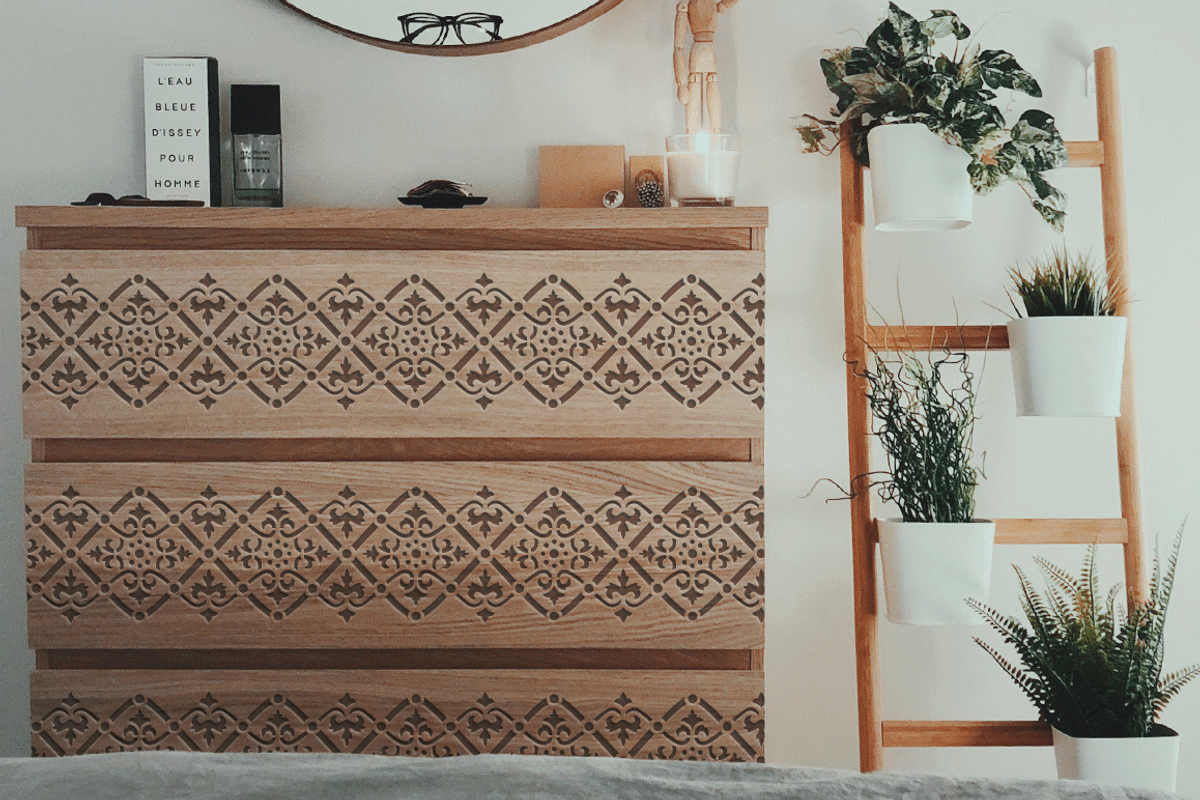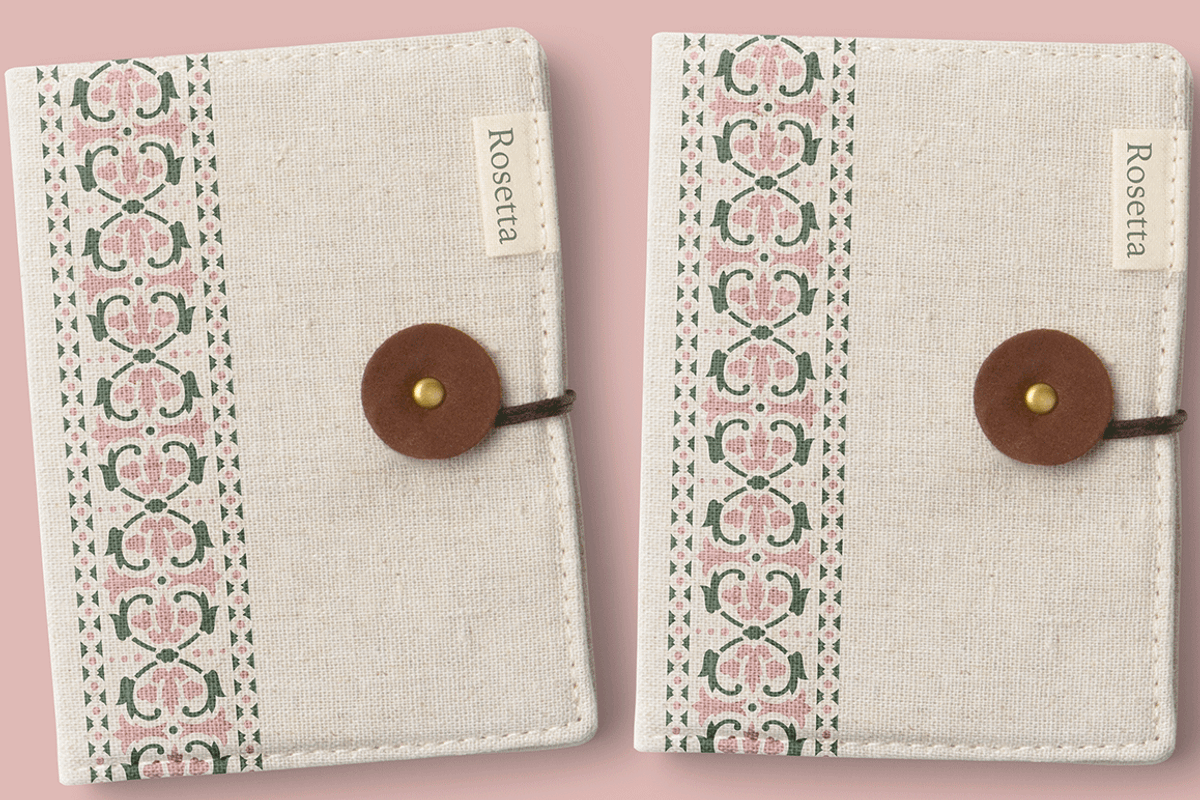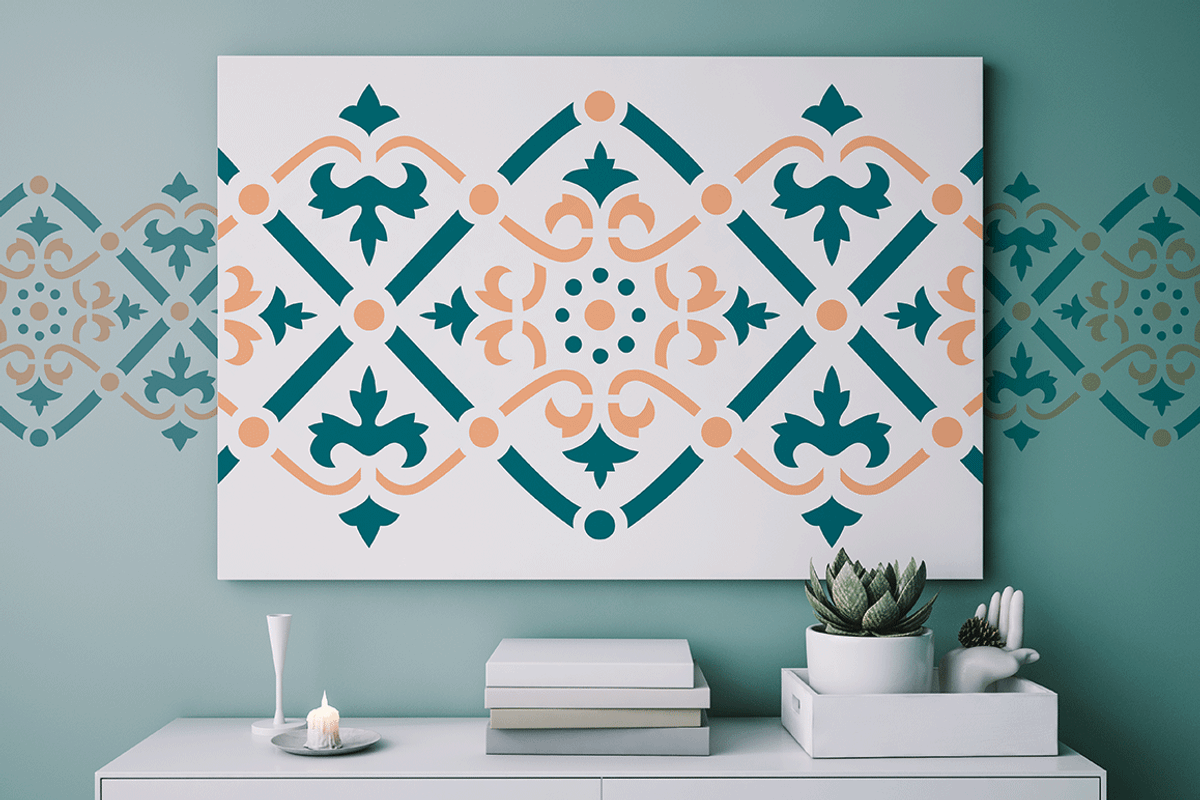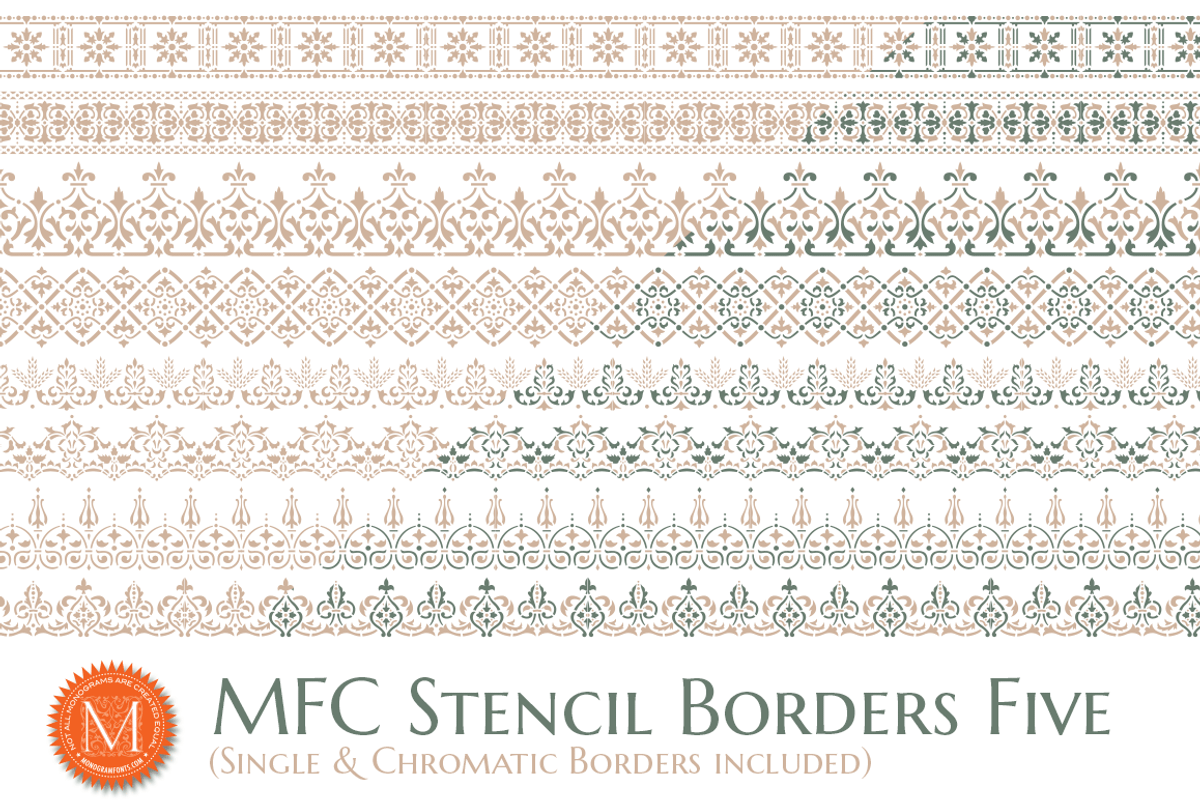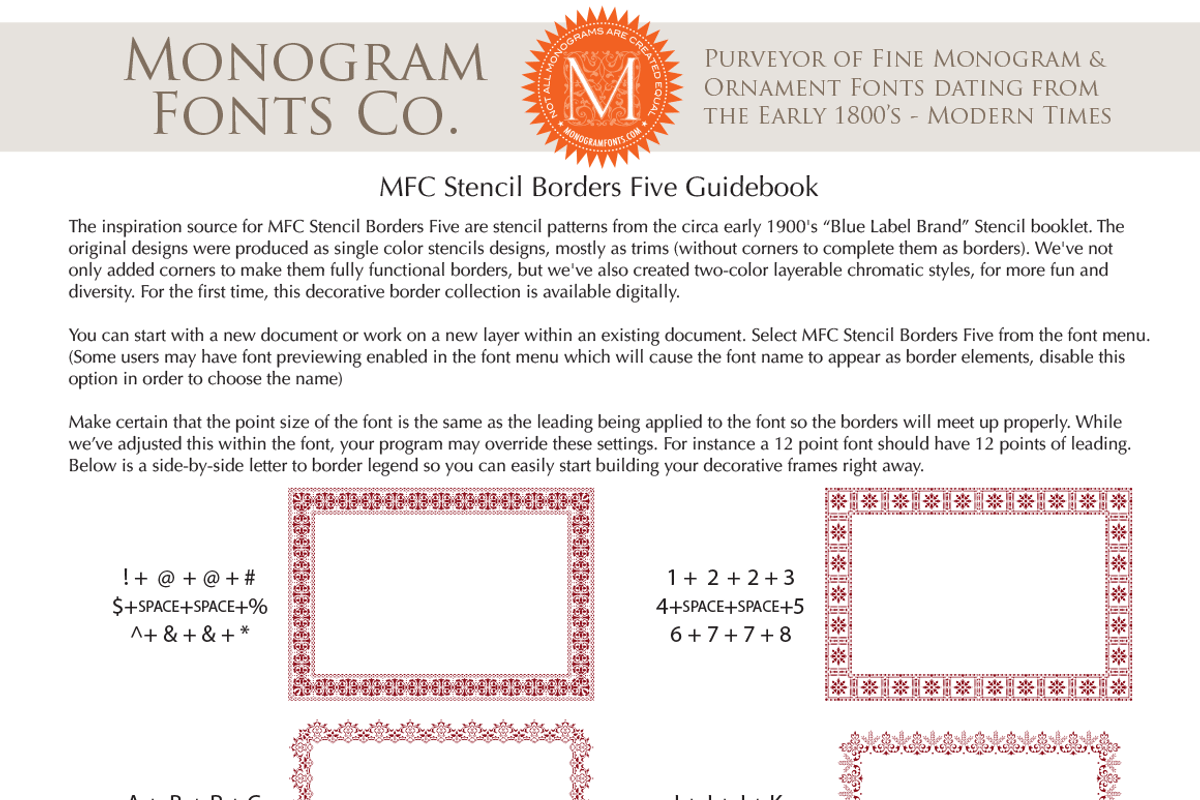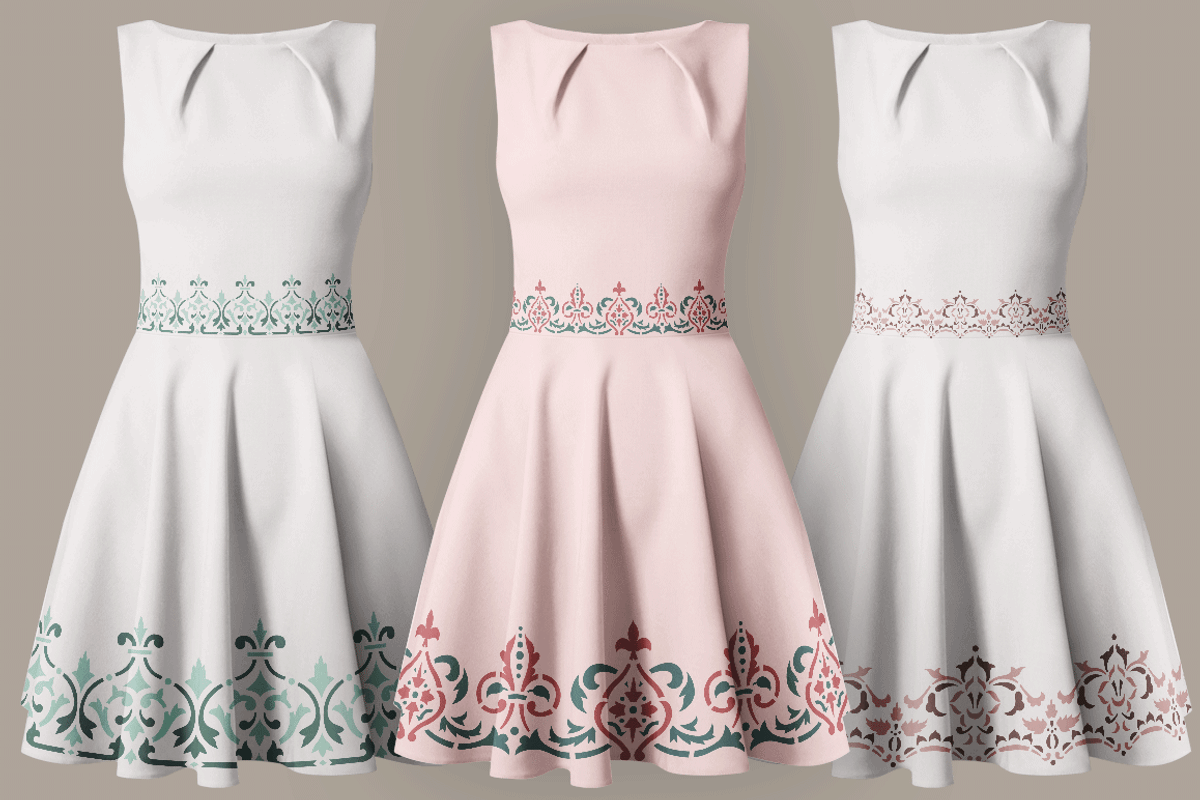
MFC Stencil Borders Five
The inspiration source for MFC Stencil Borders Five are stencil patterns from the circa early 1900's Blue Label Brand Stencil booklet. The original designs were produced as single color stencils designs, mostly as trims (without corners to complete them as borders). We've not only added corners to make them fully functional borders, but we've also created two-color layerable chromatic styles, for more fun and diversity. For the first time, this decorative border collection is available digitally.
MFC Stencil Borders Five by Monogram Fonts Co. fits naturally into Branding, posters, packaging, typography.